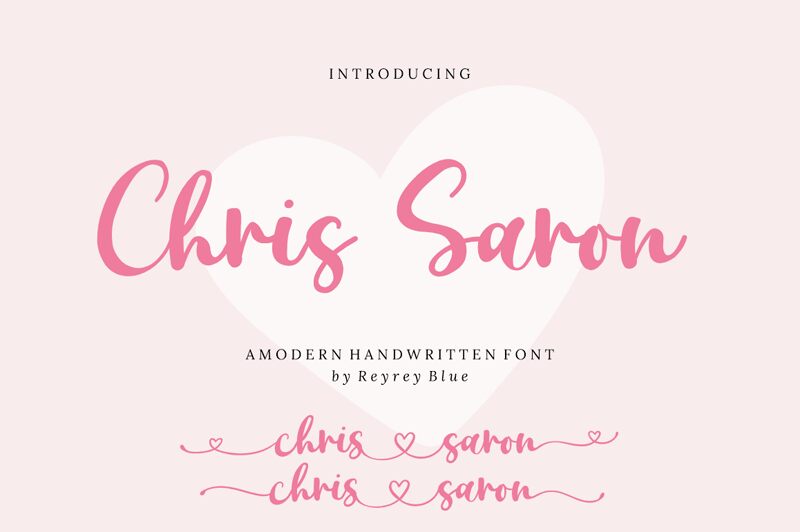
The Chris Sharon font, created by the talented designer ReyreyBlue, is a modern handwritten typeface that exudes elegance and sophistication. With its semi-bold weight, it strikes the perfect balance between boldness and subtlety.
This versatile font is suitable for a wide range of projects, including wedding invitations, elegant branding materials, fashion magazines, and stylish social media graphics. Its unique and eye-catching style adds a touch of creativity to any design while maintaining readability.
Embrace the allure of Chris Sharon and elevate your projects with its modern handwritten charm.